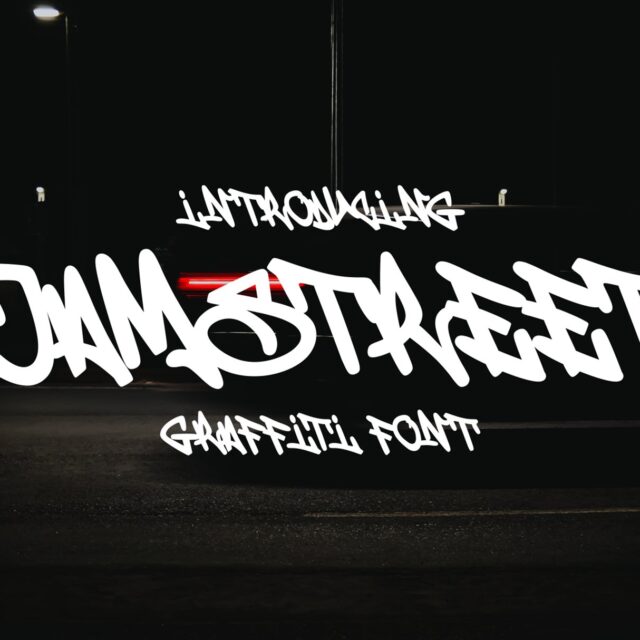
About Jamstreet
“Jamstreet” is a monoline graffiti font with a realistic monoline appearance. Monoline fonts like this often have letter characters with consistent line thickness, giving them a clean and contemporary look. “Jamstreet” can be used in various design projects, especially in street art, posters, or designs that require a consistent monoline appearance. This font can help create a clean and modern typography style in your designs.